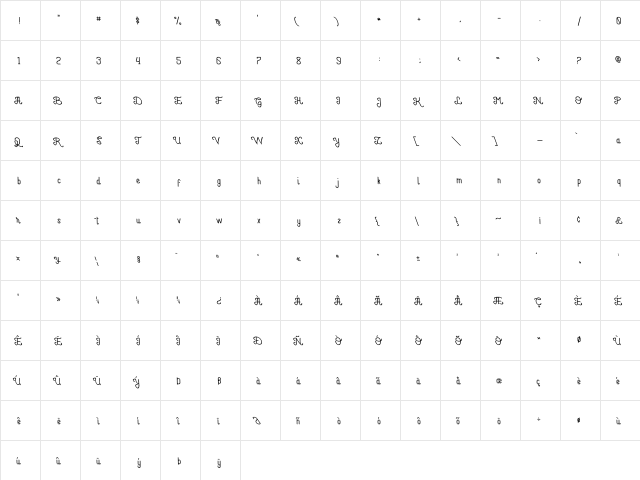
Piccolo Carino Un Tilted Regular
Design Context for Piccolo Carino Un Tilted Typeface
Piccolo Carino Un Tilted is a composed and adaptable typeface that performs quietly and consistently across a wide range of design contexts.